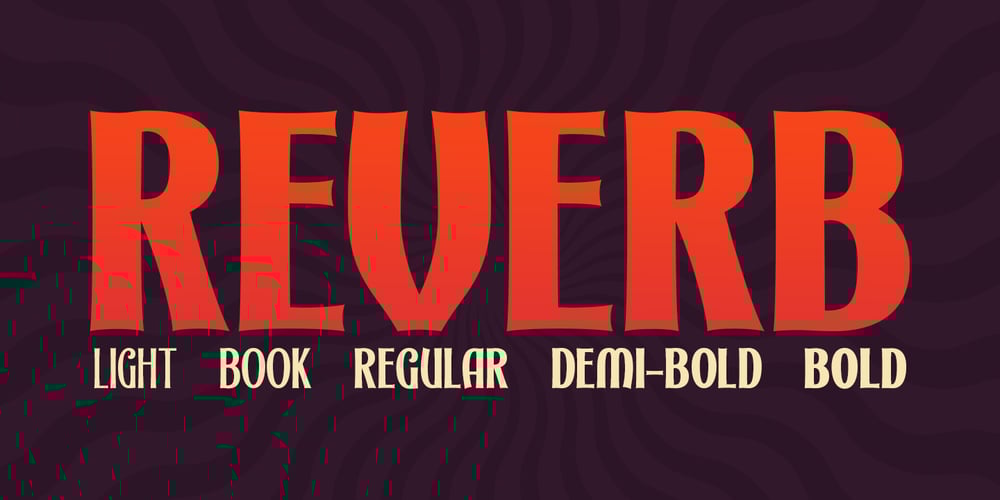
Reverb Font Family was designed by Jason Carne and published by Carmel Type Co.. Reverb contains 5 styles and family package options. Designed with the gig poster in mind, Reverb is a throwback to the Fillmore West golden age of psychedelic rock and summertime fun. With 5 distinct weights, this workhorse of a display face has you covered from light and airy to bold and curvy. Concave stems. short descenders with a tall x-height, and a generous helping of stroke contrast define this humanist sans face that’s built to shine as a headliner or to spice up some secondary copy.